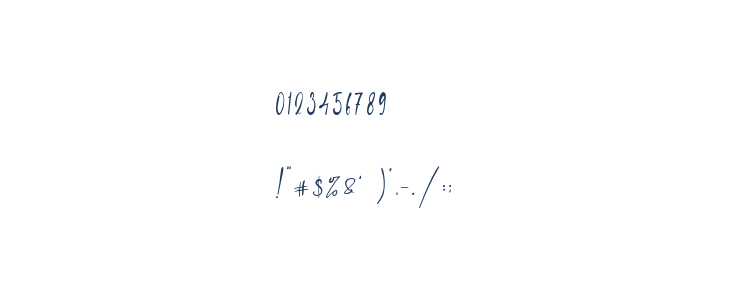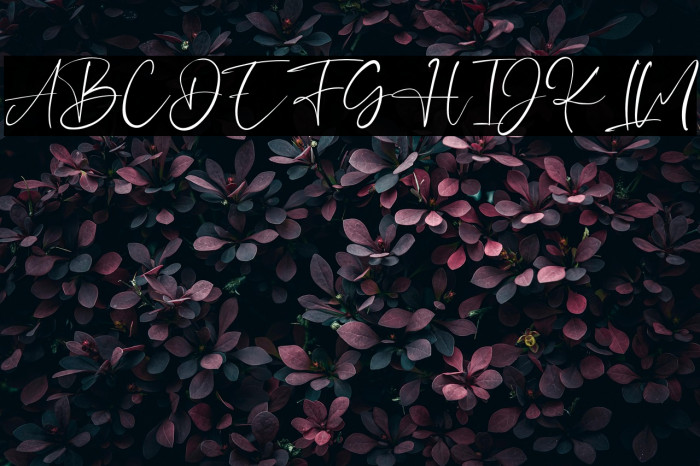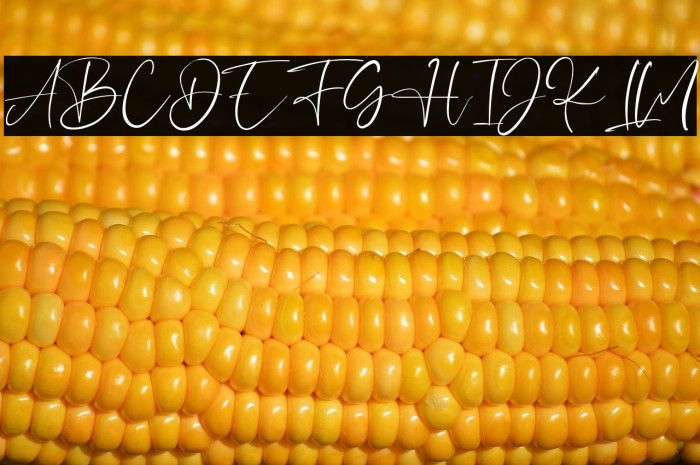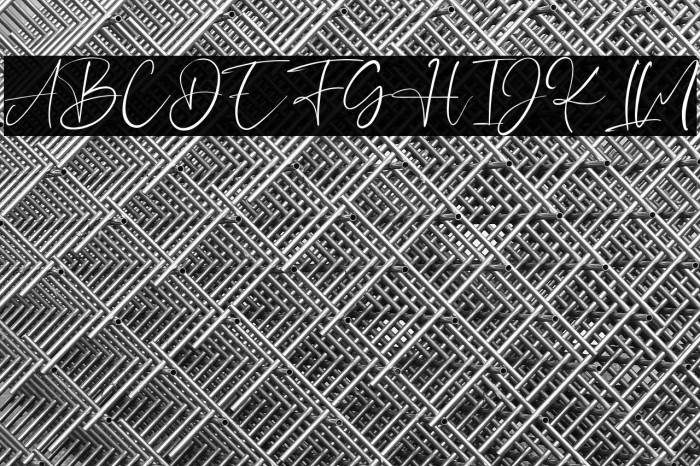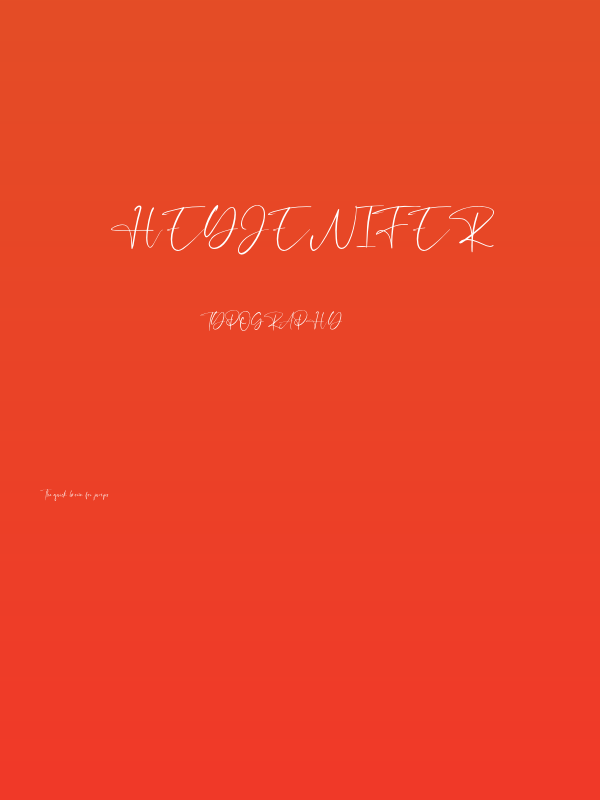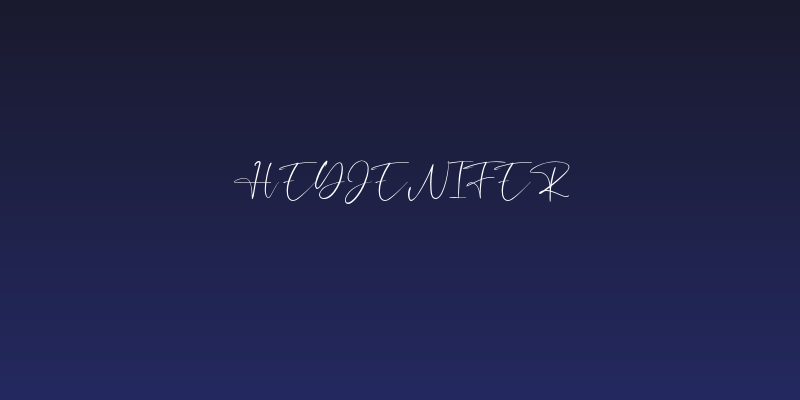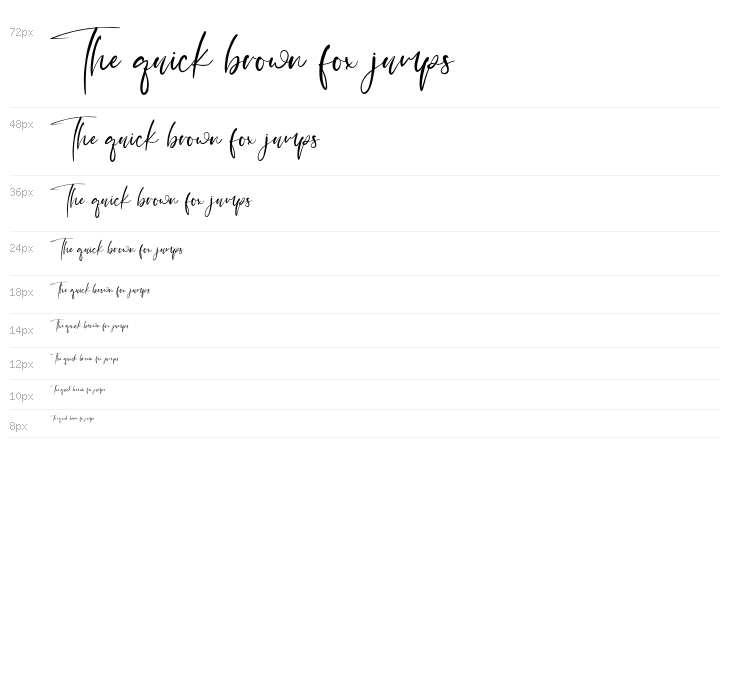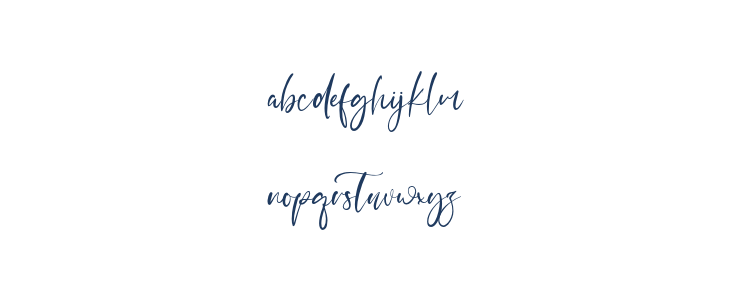
HeyJenifer Font
HeyJenifer Description
This font features an elegant and flowing script style, characterized by its graceful, cursive letterforms. The uppercase letters exhibit a sophisticated flair with sweeping ascenders and descenders, while the lowercase letters maintain a consistent, fluid motion. The numerals are designed with a similar aesthetic, ensuring a cohesive look across all characters. Special characters are thoughtfully integrated, maintaining the overall elegance of the font. This typeface exudes a sense of refinement and artistic expression, making it suitable for projects that require a touch of sophistication.
| Overall Style | Elegant, Artistic |
| Use Case | Logos, Invitations, Personal Stationery |
| Proposed Projects | Ideal for wedding invitations, elegant branding, personal stationery, and artistic projects. |